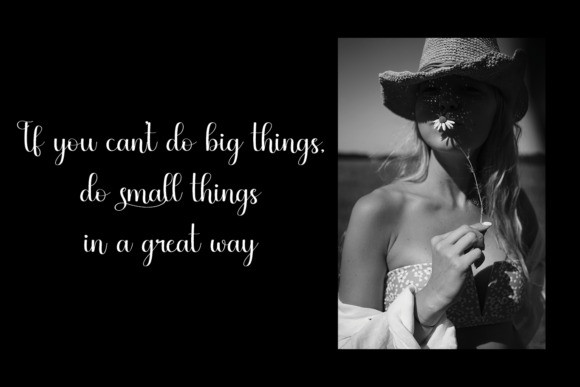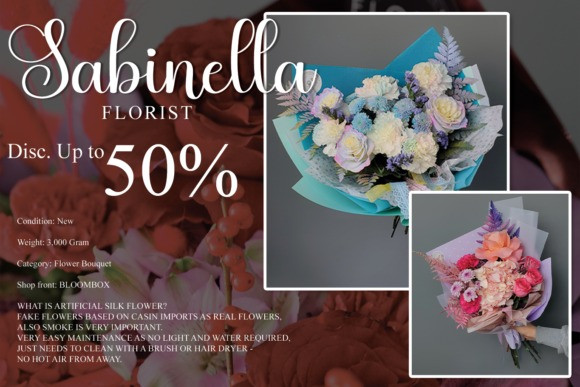
Jessica Font
Jessica Font is a lovely script font featuring charming, playful characters that seem to dance along the baseline. Add this font to your most creative ideas, and notice how it makes them stand out!